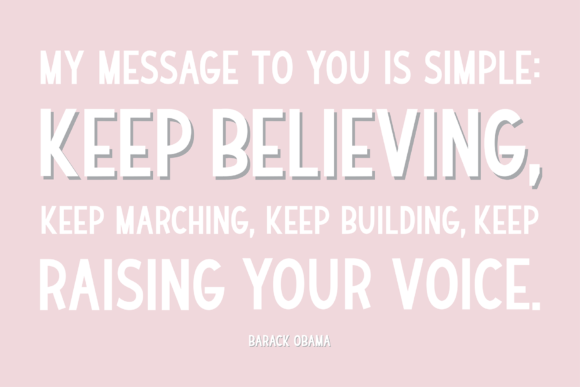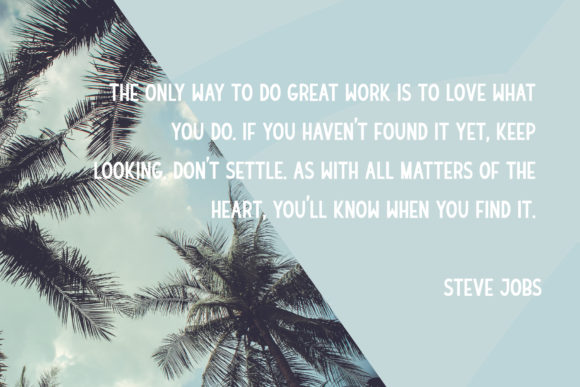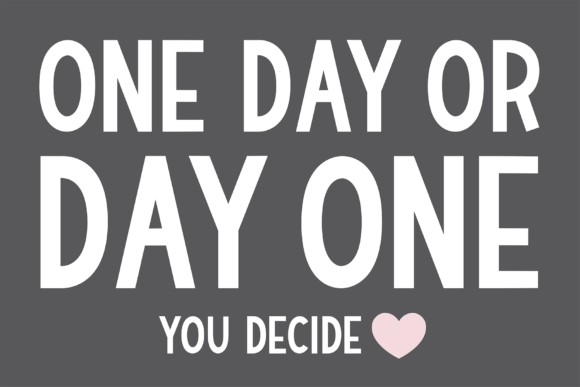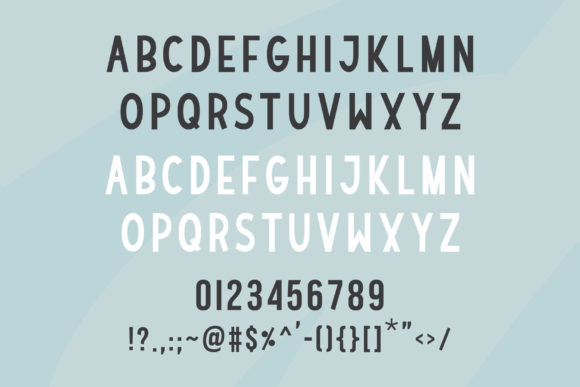
Introduction to Okra Sans Font
As a designer, there’s nothing quite like the thrill of bringing a new project to life. You’ve poured your heart and soul into every detail, from the color palette to the typography. And that’s when you stumble upon the perfect font – one that elevates your entire design and gives it that extra oomph. For many designers, that perfect font is the Okra Sans Font, a simple yet bold sans serif font that adds a unique touch to any creative project.
Whether you’re working on a high-quality design resource or a personal project, having access to a versatile font like the Okra Sans Font can be a game-changer. With its smooth and neat style, it’s the perfect addition to any design, and the fact that it’s available for free download makes it an invaluable resource for designers of all levels.
Key Features of Okra Sans Font
- High-quality sans-serif font designed for creative projects, ideal for use in graphic design, digital art, and other design resources.
- Okra Sans Font offers a transparent background, allowing for seamless integration into various design elements.
- Available in 6 weights, from Light to Black, providing flexibility for designers to choose the perfect font weight for their project.
- Designed with a clean and modern aesthetic, Okra Sans Font is perfect for a wide range of creative projects, from logos to typography-based art.
Honest Review: Okra Sans Font
As a designer, I’m always on the lookout for high-quality design resources to elevate my creative projects. Recently, I stumbled upon the Okra Sans Font, and I’m excited to share my honest review.
What works well: ✨ The Okra Sans Font is incredibly versatile, making it a great addition to any design project. Its clean lines and modern aesthetic make it perfect for digital designs, from websites to social media graphics. I also appreciate the fact that it’s available for free download, making it an excellent resource for designers on a budget.
What doesn’t work well: ⚠️ One limitation I’ve noticed is that the font doesn’t have a transparent background option. This can make it a bit tricky to use in designs that require a transparent background, such as logos or icons.
Other features I appreciate include its high-quality design and the fact that it’s easily scalable, making it perfect for a wide range of design applications.
In conclusion, the Okra Sans Font is a great addition to any designer’s toolkit. While it may have some limitations, its versatility and high-quality design make it a valuable resource for any creative project.
- Modern aesthetic
- Not suitable for designs requiring a transparent background
Okra Sans Font is a versatile design resource that can be used in a variety of creative projects, including social media graphics, presentations, documents, and more. It’s a great choice for anyone looking for a high-quality, free download font.
Can I use the Okra Sans Font with a transparent background?
Yes, the Okra Sans Font supports transparent backgrounds, making it ideal for use in designs that require a clear or see-through background. This feature is particularly useful for creating visually appealing graphics and animations.